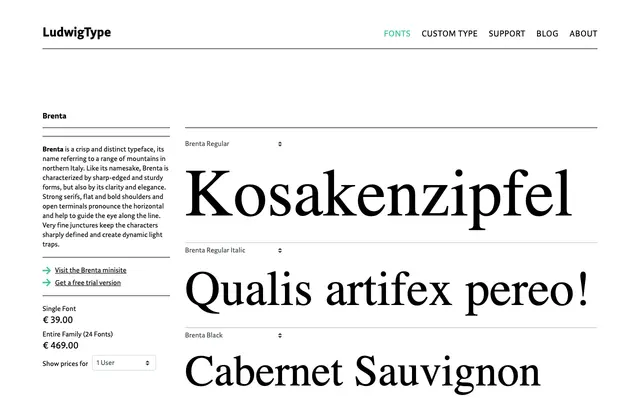
Brenta
A transitional serif from Ludwig with eight weights, matching italics and small caps across the full range.
Twenty-four styles cover eight weights from Thin to Black, each accompanied by an italic and a small caps cut. The inclusion of small caps at every weight points to a design intended for considered typographic hierarchies in editorial or book contexts. The weight range is broad enough to span both delicate display work at the lighter end and forceful headline use at Black.
The upright small caps variants, broad weight range from Thin to Black, and the overall page presentation suggest a classical transitional serif design suited to sustained text and editorial use.